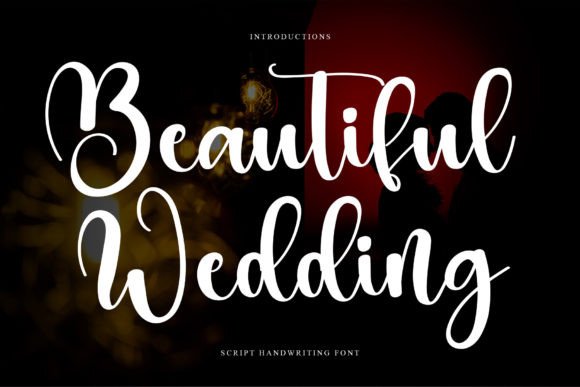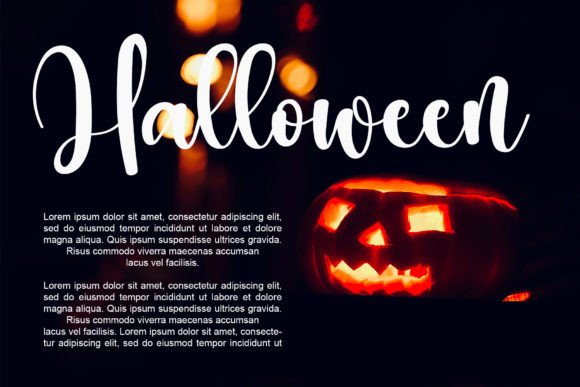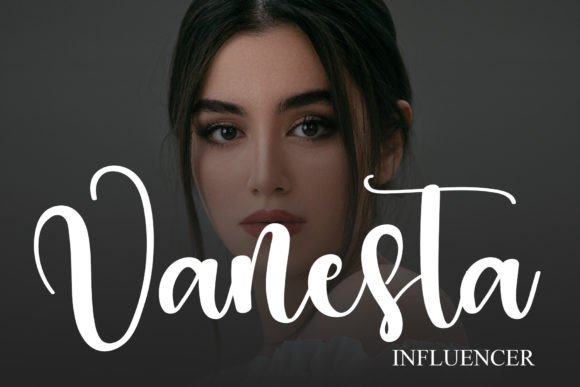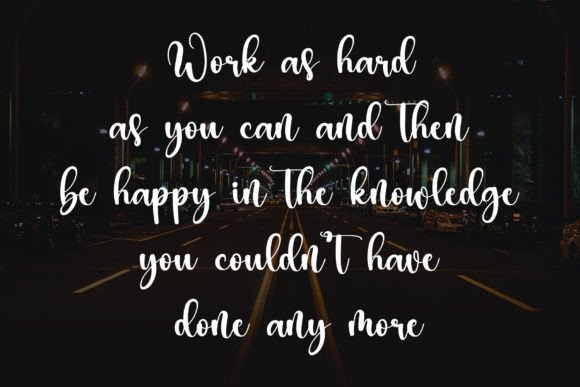
Beautiful Wedding Font
About the Beautiful Wedding Font
Make a bold statement with Beautiful Wedding Font, a powerful and memorable font. Beautiful Wedding is a stylish and incredibly elegant script font. It looks stunning on wedding invitations, thank you cards, quotes, greeting cards, logos, business cards, and every other design that needs a handwritten touch.
Beautiful Wedding Font Usage Examples
Beautiful Wedding Font Example